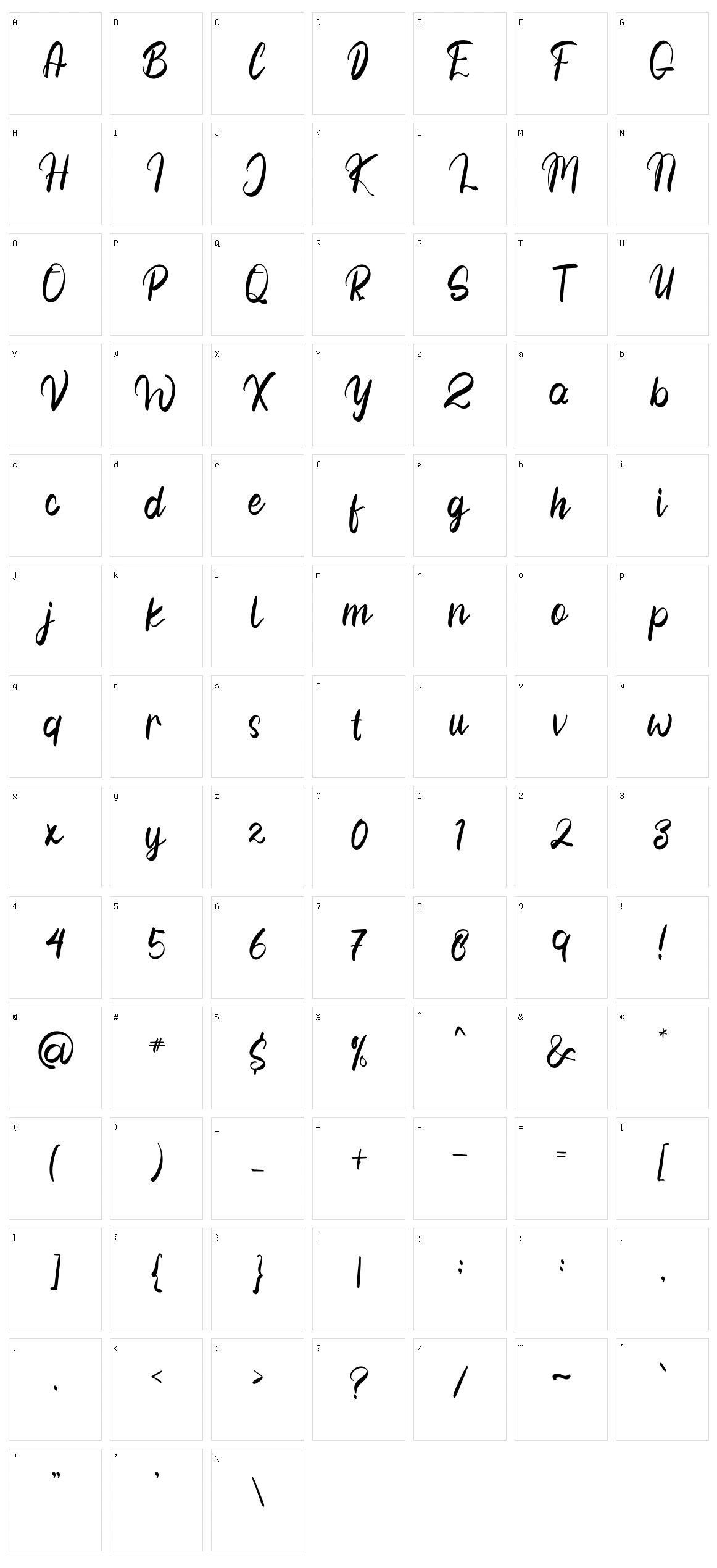
The free font Winter Time is carefully designed by One Design, showcasing a thoughtful balance of creativity and usability and falls under the Script font style. When you download the ZIP file, it contains only 63.11 KB of font files, making it lightweight and quick to download. Please review the license details below to understand permitted usage and distribution rights. If license information is not available, we recommend using this font for personal projects only or contacting the author directly for commercial usage permissions.